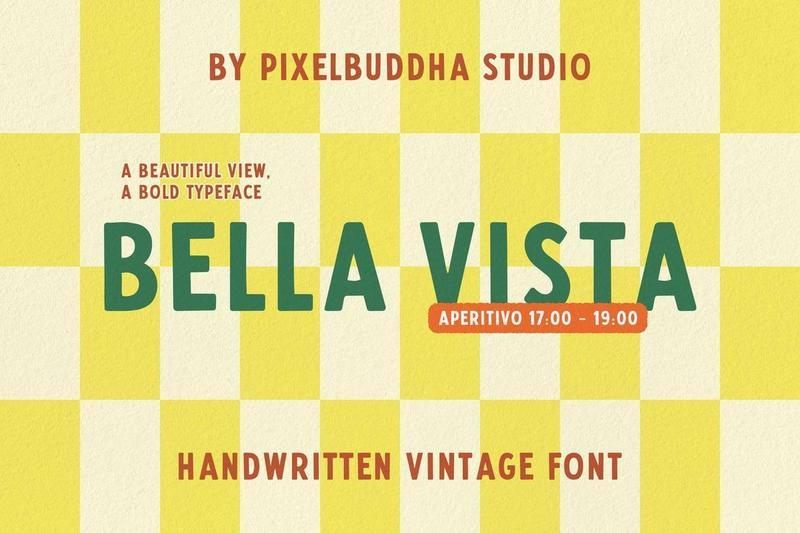
Bella Vista grew out of hand-painted seaside signage lettering brushed straight onto trattoria windows and faded by years of Mediterranean sun. It’s a bold all-caps display font with condensed proportions, rounded terminals, and the slightly uneven edges of a sign painter working fast. The heavy weight and tight spacing lock a headline together as type squeezed onto a harbor-front board.
**Practical uses:**
– Restaurant and caf branding trattorias, wine bars, gelaterias, beach clubs, aperitivo spots.
– Menus and signage daily specials, chalkboards, window lettering, table tents, price boards.
– Packaging design olive oil tins, limoncello bottles, pasta boxes, coffee bags, deli labels.
– Posters and social summer markets, festival flyers, story templates, announcement posts.
– uppercase AZ (lowercase keys repeat the capitals);
– numerals, punctuation & symbols;
– accented characters for Western European and Nordic languages;
– currency & reference marks ( );
– 175 glyphs total;